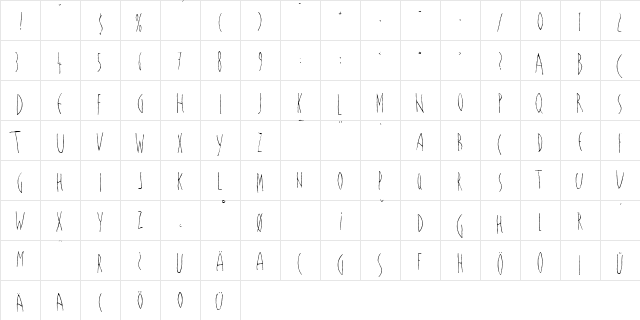
LasBonitasLight Regular
Design Context for LasBonitasLight Typeface
LasBonitasLight is a composed and adaptable typeface that performs quietly and consistently across a wide range of design contexts. Its slender proportions lend an understated elegance to any composition.